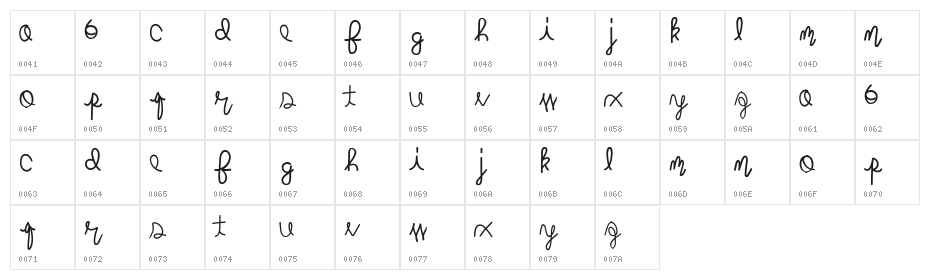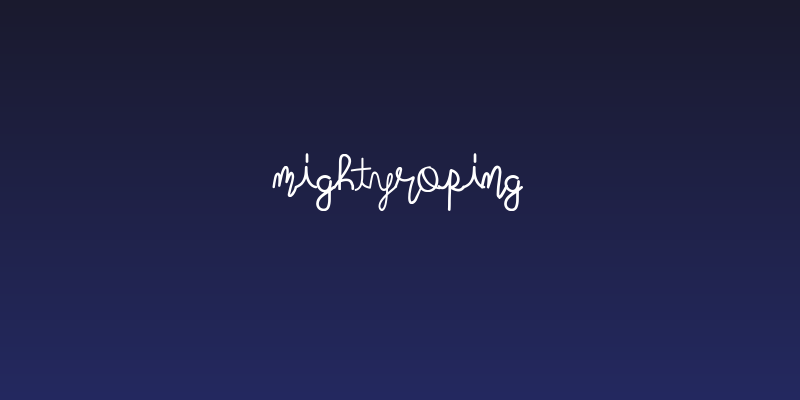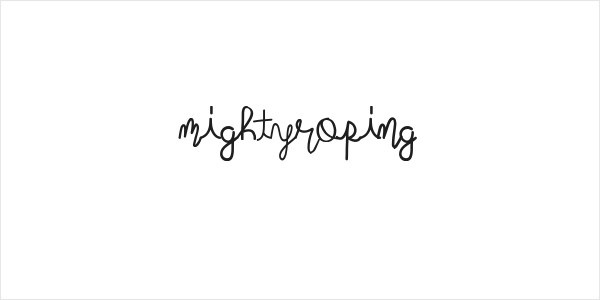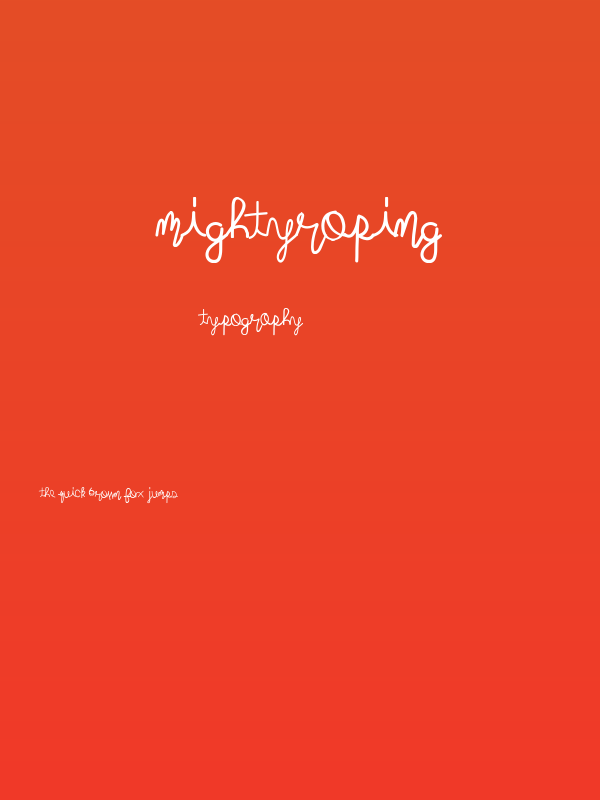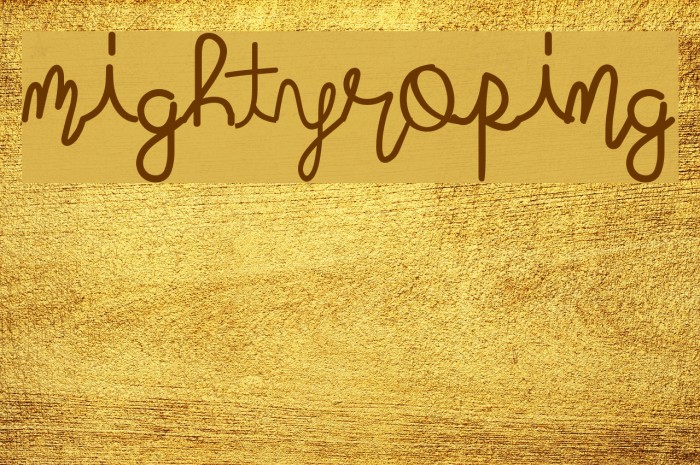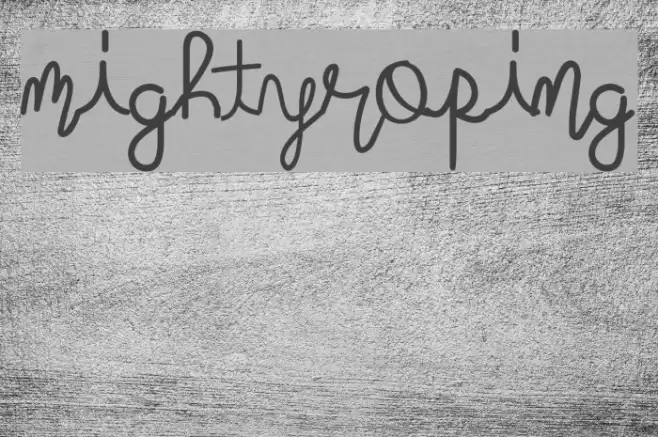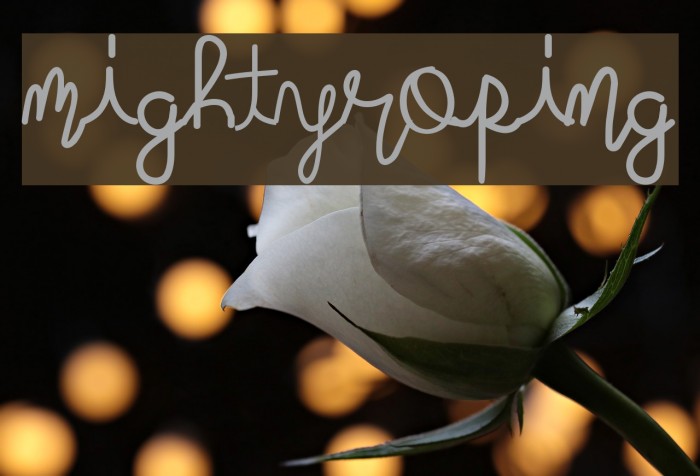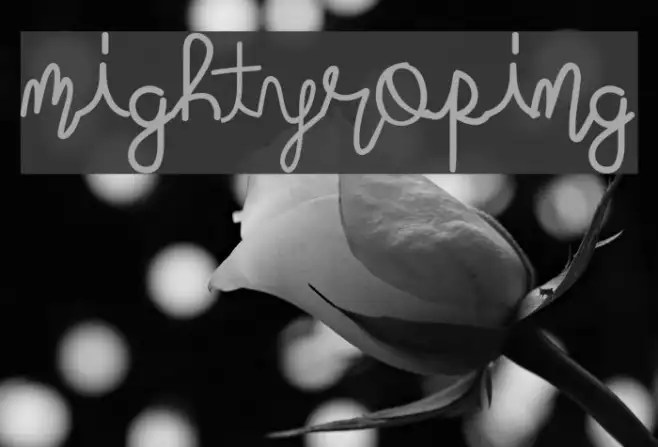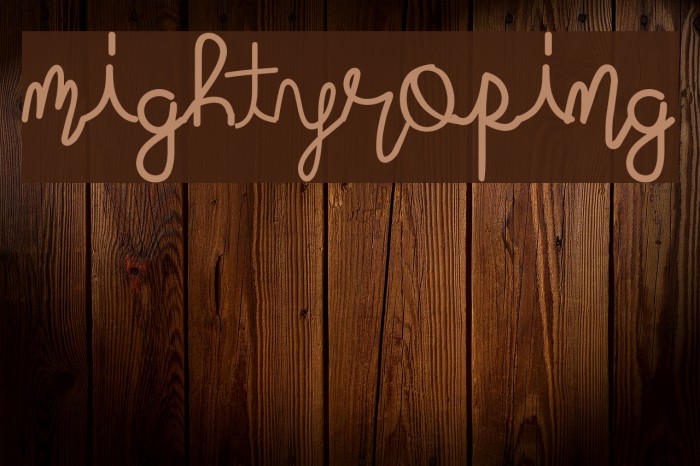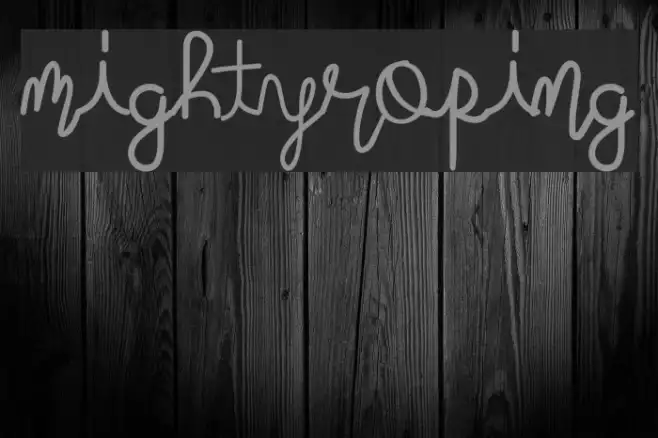
mightyroping Font
mightyroping Description
This font features a playful and whimsical script style, characterized by its flowing, interconnected letters. The strokes are smooth and rounded, giving it a friendly and approachable appearance. The letters have a consistent height, with some playful loops and curls that add a touch of elegance. The overall design is casual yet stylish, making it suitable for creative and informal projects. The font maintains readability despite its decorative nature, with each character distinctly recognizable. It's perfect for adding a personal touch to any design.
| Proposed Projects | Ideal for greeting cards, invitations, personal branding, and creative projects that require a friendly and informal touch. |